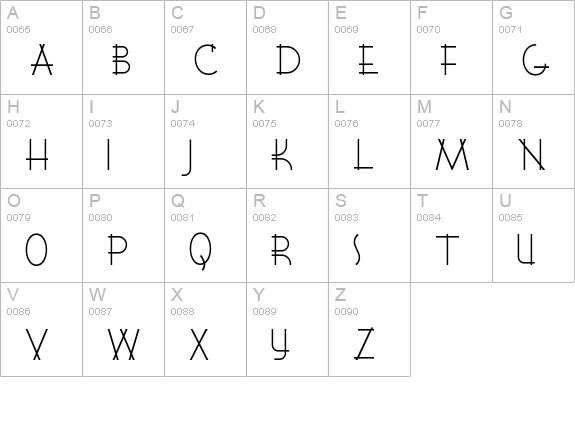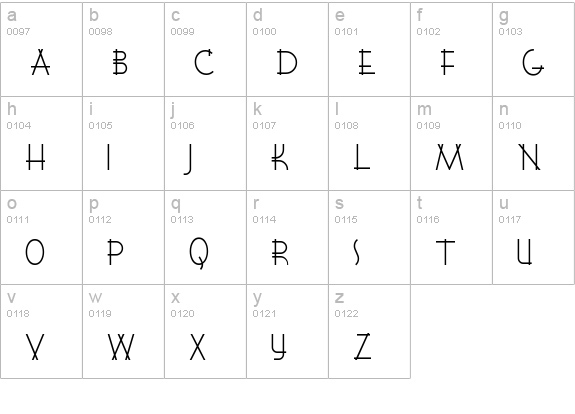
WigwamNF Light Font Details
WigwamNF Light is a refined, elegant variant in the WigwamNF typeface family \xE2\x80\x94 well suited to elegant body text, refined sub-headings, and luxury branding.
WigwamNF Light is a stunning font that effortlessly combines elegance and simplicity. Its clean and refined design makes it the perfect choice for a wide range of projects, from branding and logos to headlines and body text. This font's gentle curves and delicate strokes add a touch of sophistication to any design. One of the best things about WigwamNF Light is that it is available for free. Yes, you read that right - you can download this remarkable font at absolutely no cost! FontsMarket.com is proud to offer this font as a freely available resource for designers, allowing them to explore and experiment without any limitations. With its generous x-height and excellent legibility, WigwamNF Light is a versatile font that can be used across various mediums. Whether it's for print or digital use, this font ensures that your message is conveyed with utmost clarity and style. Its balanced letterforms and consistent spacing make it a pleasure to read, ensuring a seamless reading experience. So, if you're looking for a font that combines grace and functionality, look no further than WigwamNF Light. It's not only a visually stunning typeface but also a free one! Download it today from FontsMarket.com and let your creativity soar with this remarkable font.